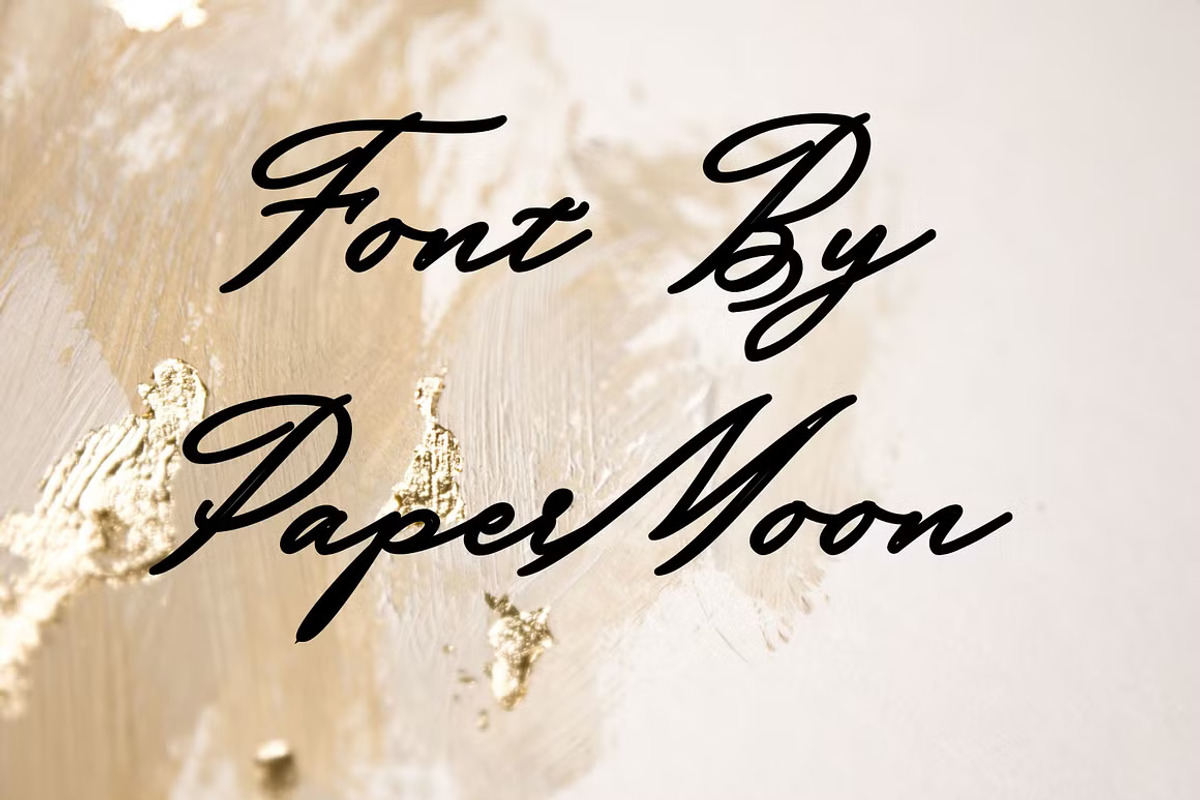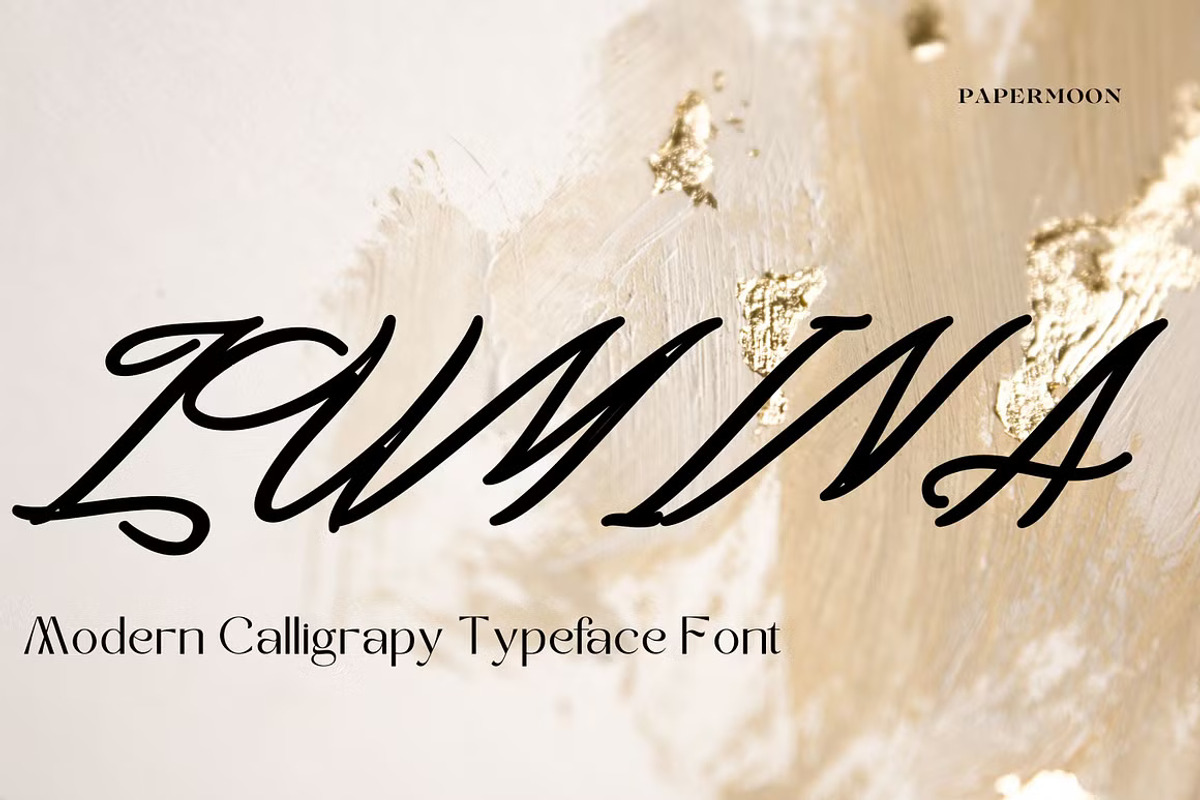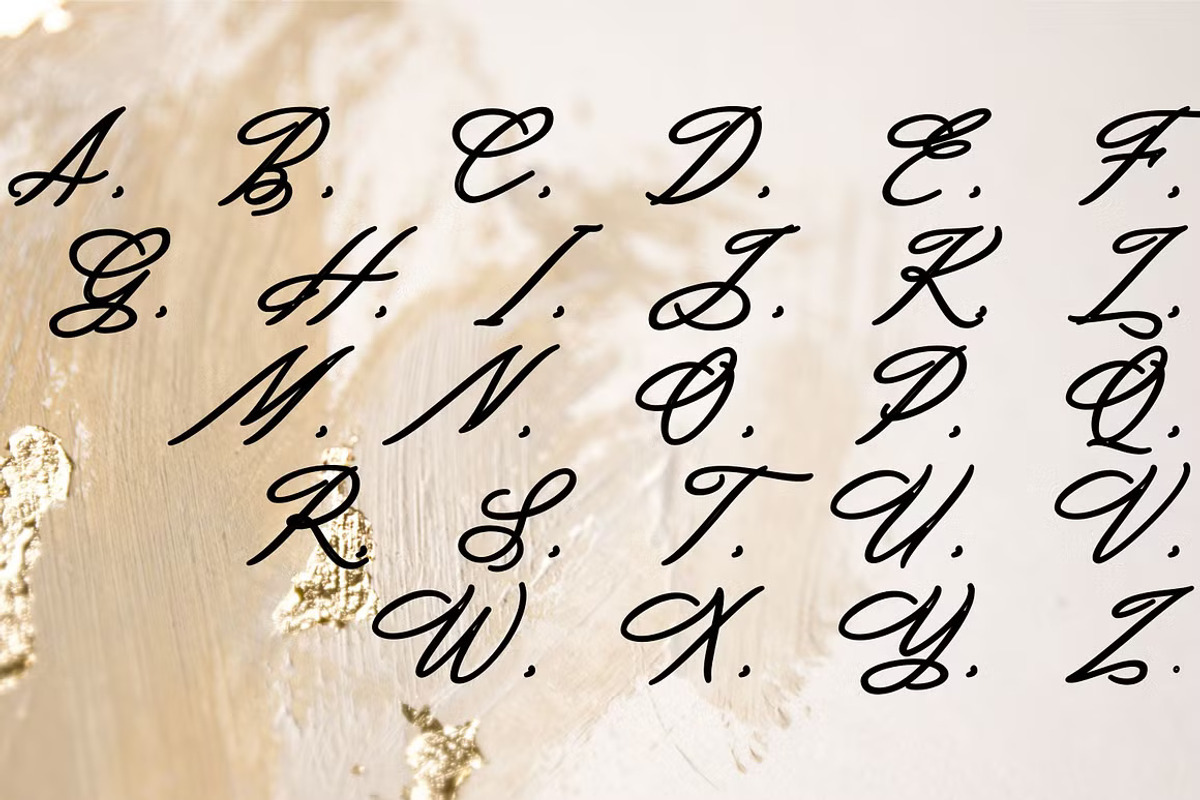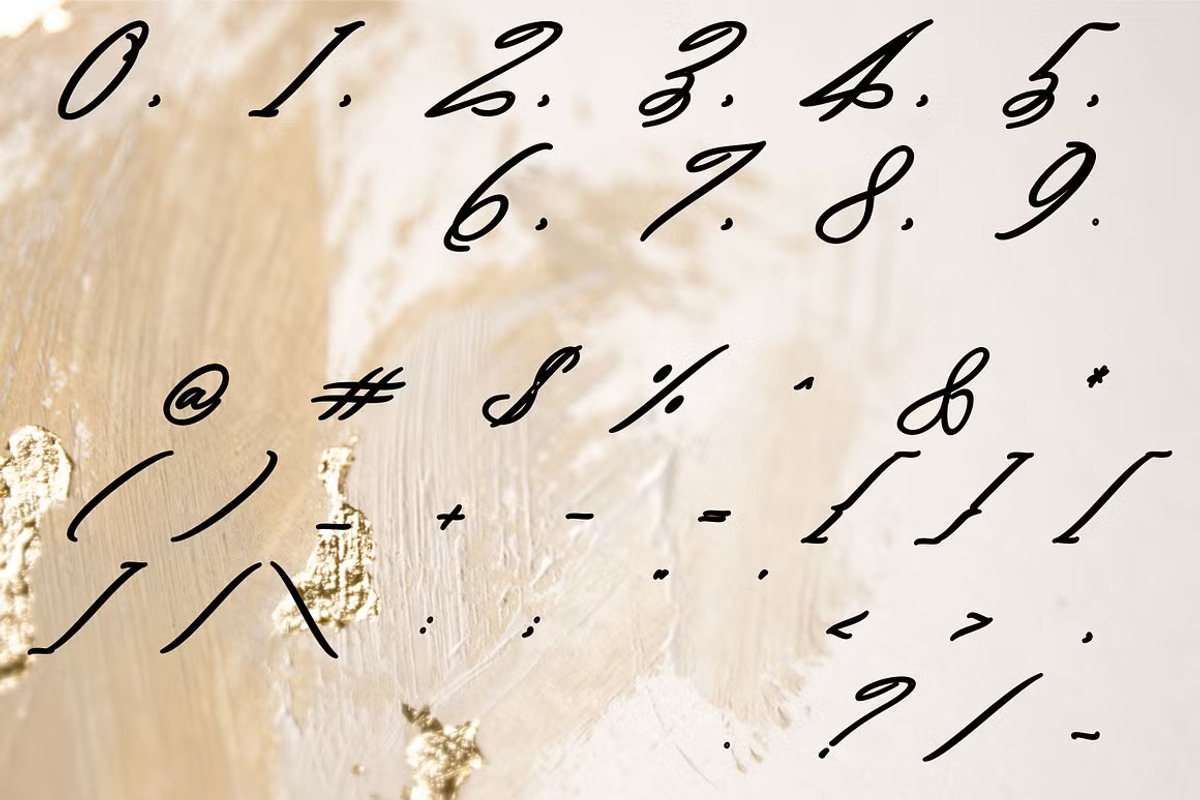
Lumina Modern Calligraphy Typeface
Introducing Lumina: The Modern Calligraphy Typeface to Elevate Your Design Projects!
We are thrilled to present the Lumina Modern Calligraphy Typeface, a stunning font designed to bring sophistication and elegance to your creative work.
Complete Character Set: A-Z for all your typography needs Numerals & Punctuation Marks: OpenType Standard for professional versatility Multilingual Support: Accents for global character compatibility Stylistic Alternates: Add a personalized and elegant touch to your designs The Lumina Typeface is crafted to infuse a sense of elegance and creativity into every project, making it the perfect choice for branding, wedding invitations, logos, social media graphics, and much more. Its modern calligraphy style adds a refined, hand-crafted feel, ensuring your work stands out.
Whether you’re designing for professional projects or personal creations, Lumina provides the versatility and beauty needed to make a lasting impression. Our attention to detail in each character ensures your typography is both stylish and functional.
Transform your designs with the graceful elegance of Lumina – your ultimate typeface for modern calligraphy excellence.